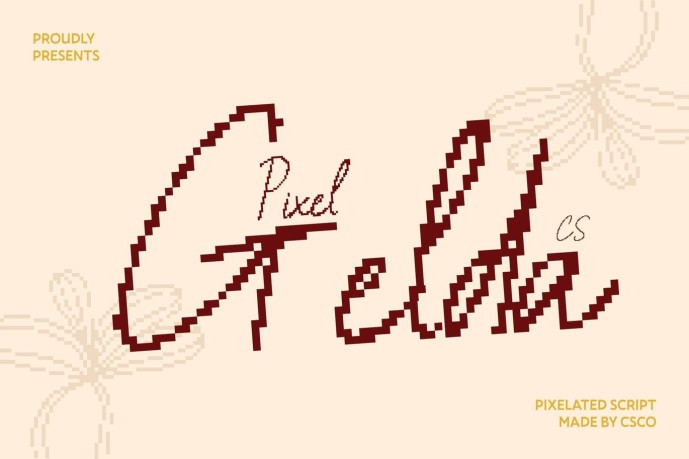
CS Gelda Pixel Font
Designer: Craft Supply Co.
CS Gelda Pixel Font – Handwritten Elegance with Digital Precision Refined Script Beauty in Pixel Form This is a modern handwritten script font that blends graceful flow with a distinctive pixel structure. Each curve is carefully translated into pixel form, preserving the natural elegance of handwriting while adding a crisp digital edge. The result is a refined script that feels personal, polished, and visually striking.
Elegant Flow Meets Retro-Digital Charm Inspired by Italian handwriting and timeless sophistication, this font carries smooth monoline strokes with a rhythmic pixel construction. The flowing connections maintain warmth and romance, while the pixel style introduces a subtle retro-tech aesthetic reminiscent of classic digital displays and early computer graphics.
Perfect for Luxury Branding with a Pixel Twist This font is ideal for branding, wedding invitations, fashion labels, and luxury packaging that seek elegance with a unique digital personality. The handwritten script brings intimacy and class, while the pixel style adds eye-catching distinction perfect for modern brands that want to stand out.
Versatile Script for Modern and Old-Tech Designs From elegant stationery and logos to digital visuals and retro-inspired projects, this font adapts beautifully across mediums. This font delivers timeless charm with a modern-pixel twist, making it perfect for designers who want sophistication, nostalgia, and handcrafted elegance in an expressive script.